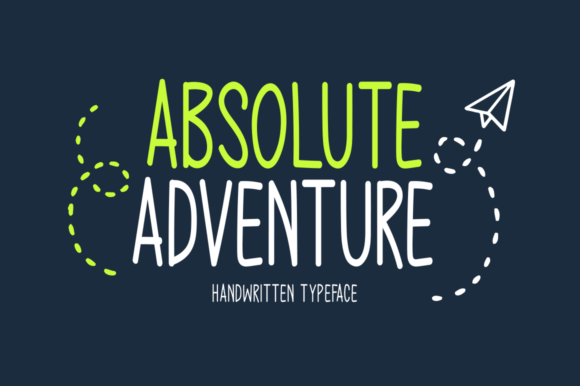
The Ultimate Creative Companion: Unleashing the Power of Absolute Adventure Font
I’ll never forget the moment I stumbled upon the perfect font for a client’s project. I was working on a custom greeting card design, and no matter how hard I tried, I just couldn’t find the right fit. That was until I discovered Absolute Adventure, a unique handwritten font that instantly elevated my design and left my client speechless. In this article, I’ll share my experience with Absolute Adventure, its features, and how to make the most of it in various design platforms.
Absolute Adventure has quickly become a staple in my design toolkit, and for good reason. Here are some of the things I love about this font:
• ✨ Unique and Creative: Absolute Adventure has a distinct, handcrafted feel that adds a touch of personality to any design.
• ✅ Versatile: This font is suitable for a wide range of projects, from greeting cards and business cards to logos and quotes.
• 🌈 Easy to Read: Despite its creative flair, Absolute Adventure remains highly legible, making it perfect for both digital and print designs.
• 🤔 Limited Formality: Absolute Adventure is a highly creative font, which means it may not be the best fit for more formal or traditional designs.
• ⚠️ Glyph Limitations: While the font has a wide range of glyphs, some users may find that it lacks certain special characters.
The Story Behind Absolute Adventure
Absolute Adventure was designed by a talented type designer who wanted to create a font that captured the spirit of adventure and creativity. Inspired by vintage travel posters and handwritten notes, this font is perfect for designers who want to add a touch of personality to their work.
Font Name Absolute Adventure Font
Author Seemly Fonts
What type of designs is Absolute Adventure best suited for? Absolute Adventure is perfect for creative designs, such as greeting cards, business cards, logos, and quotes.
Is Absolute Adventure easy to read? Yes, despite its creative flair, Absolute Adventure remains highly legible.
Does Absolute Adventure have OpenType features? Yes, Absolute Adventure has a range of OpenType features, including ligatures and stylistic alternates.